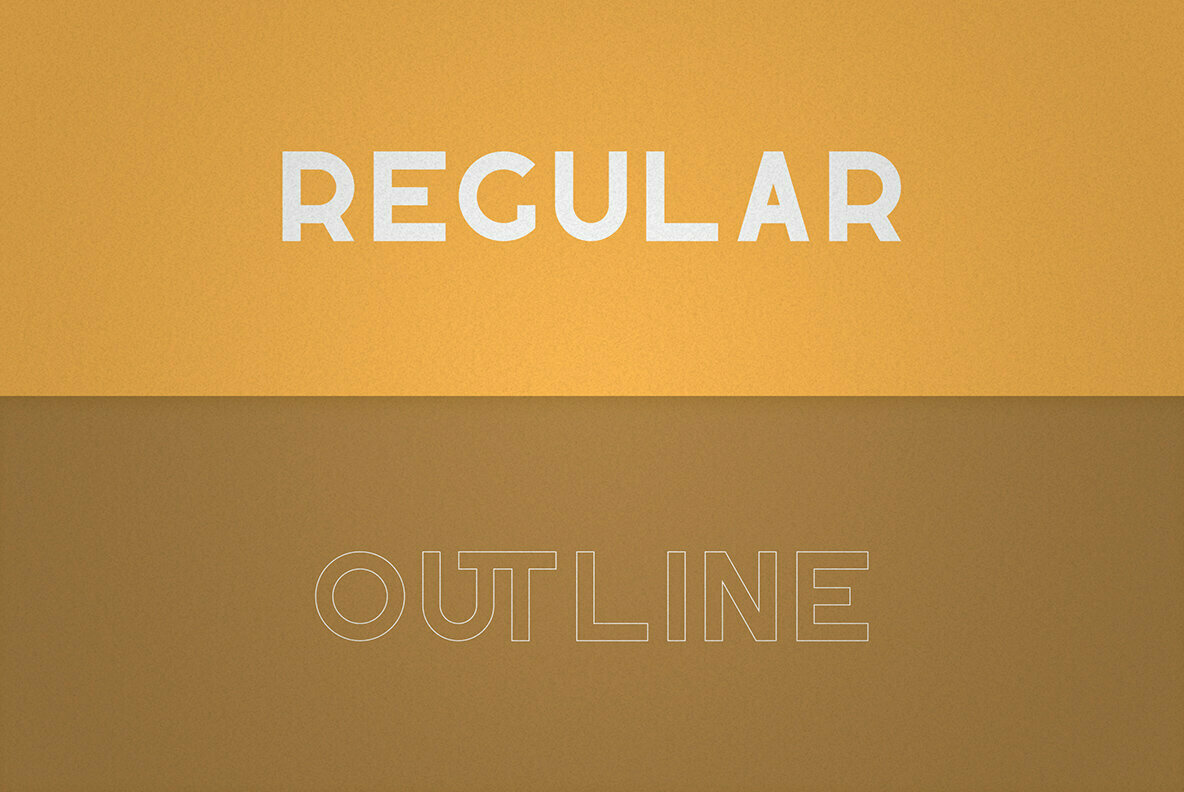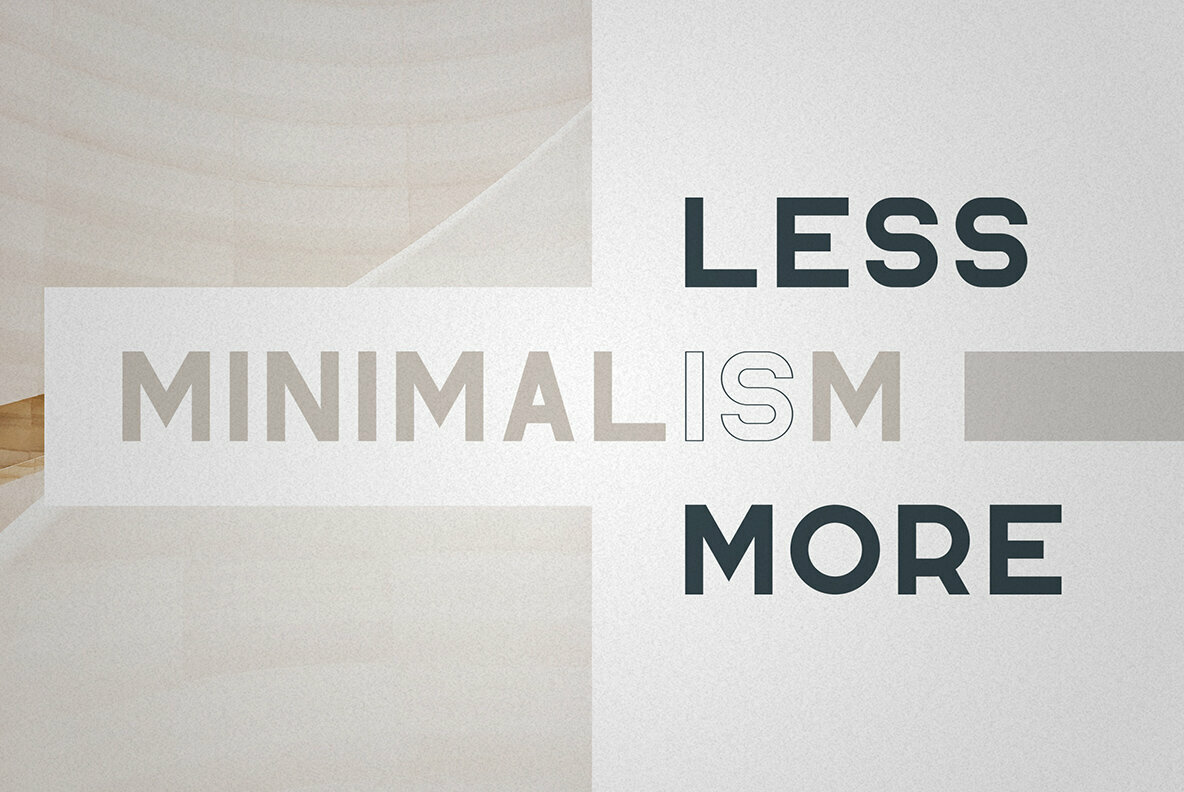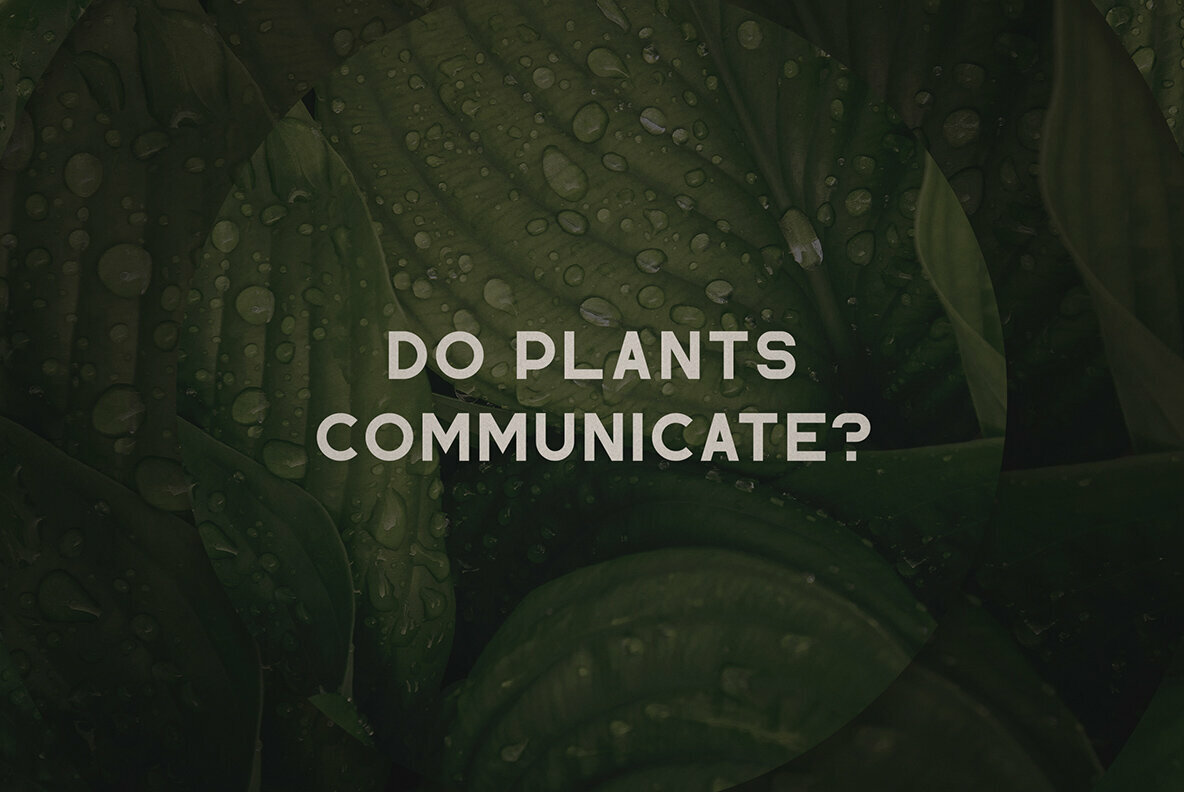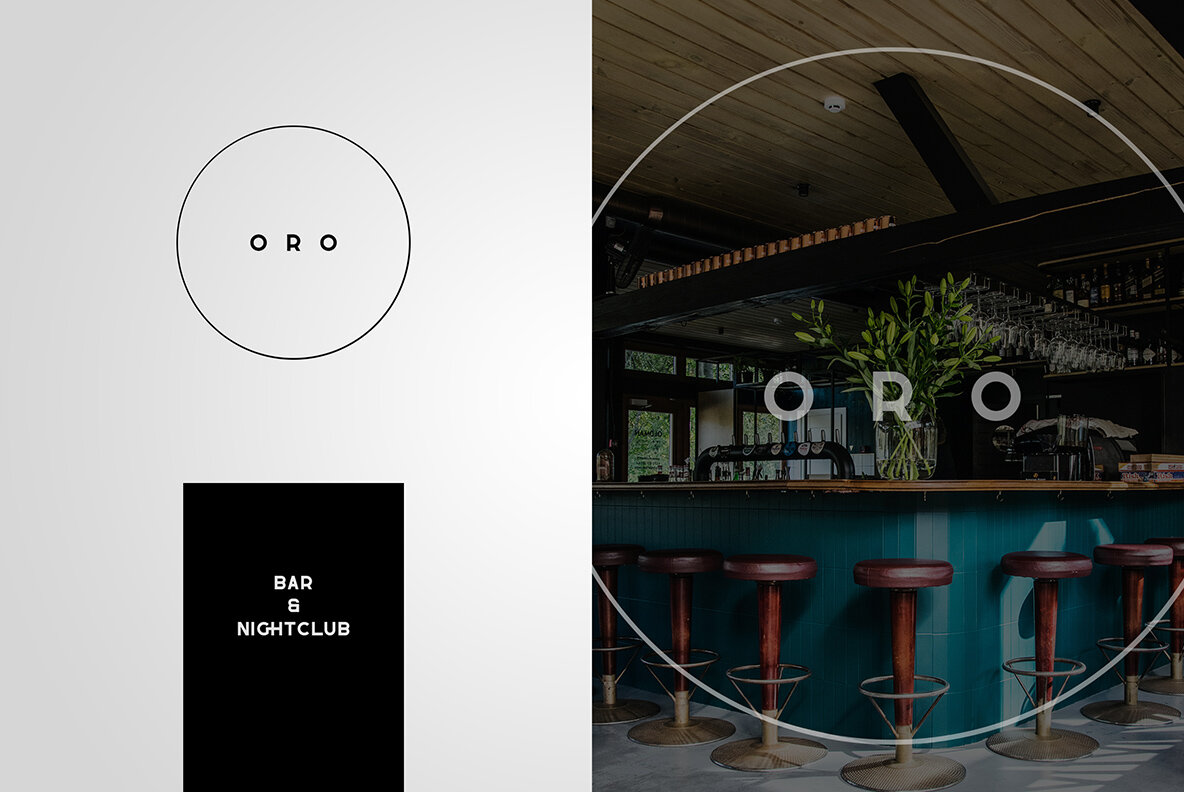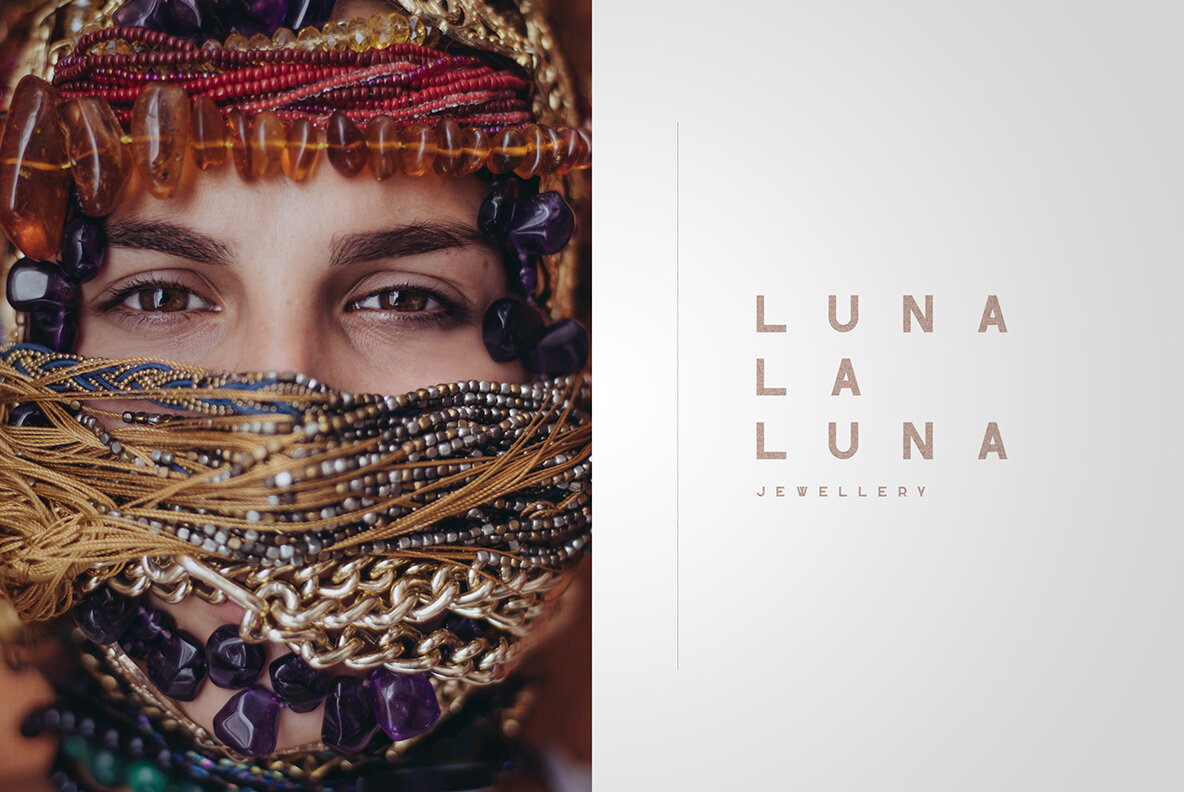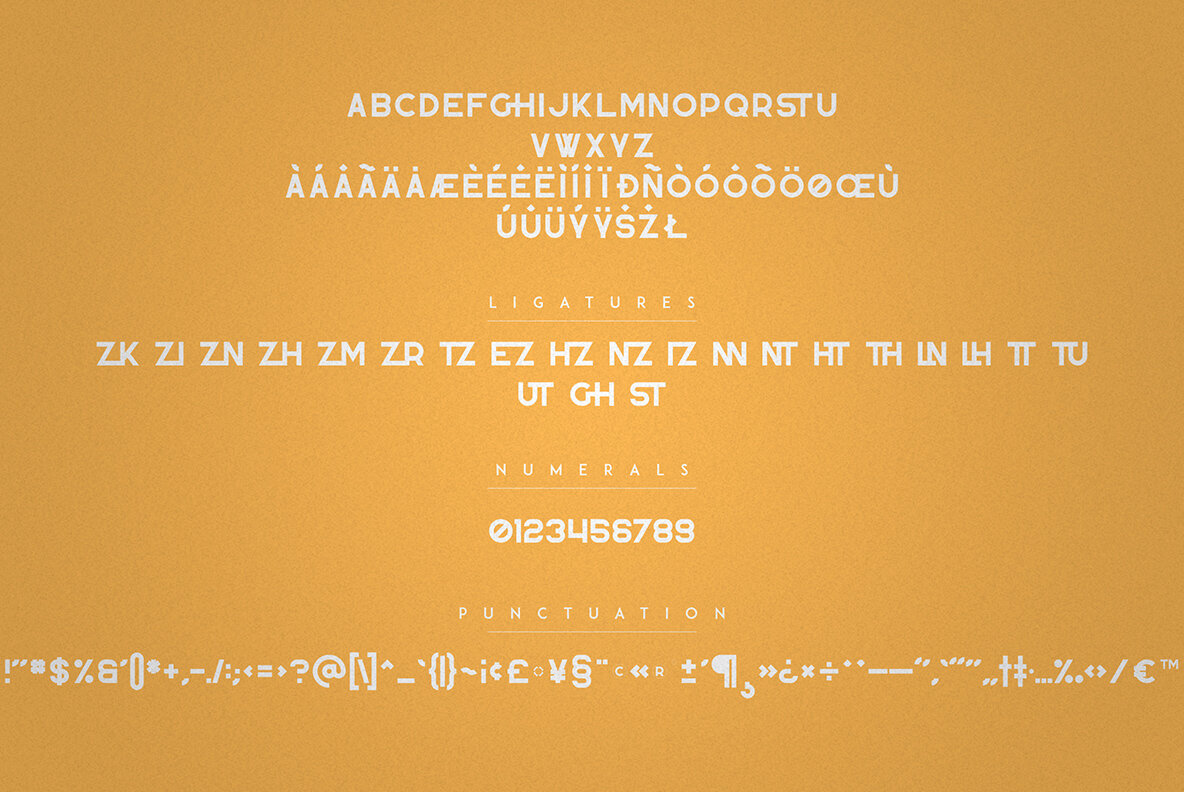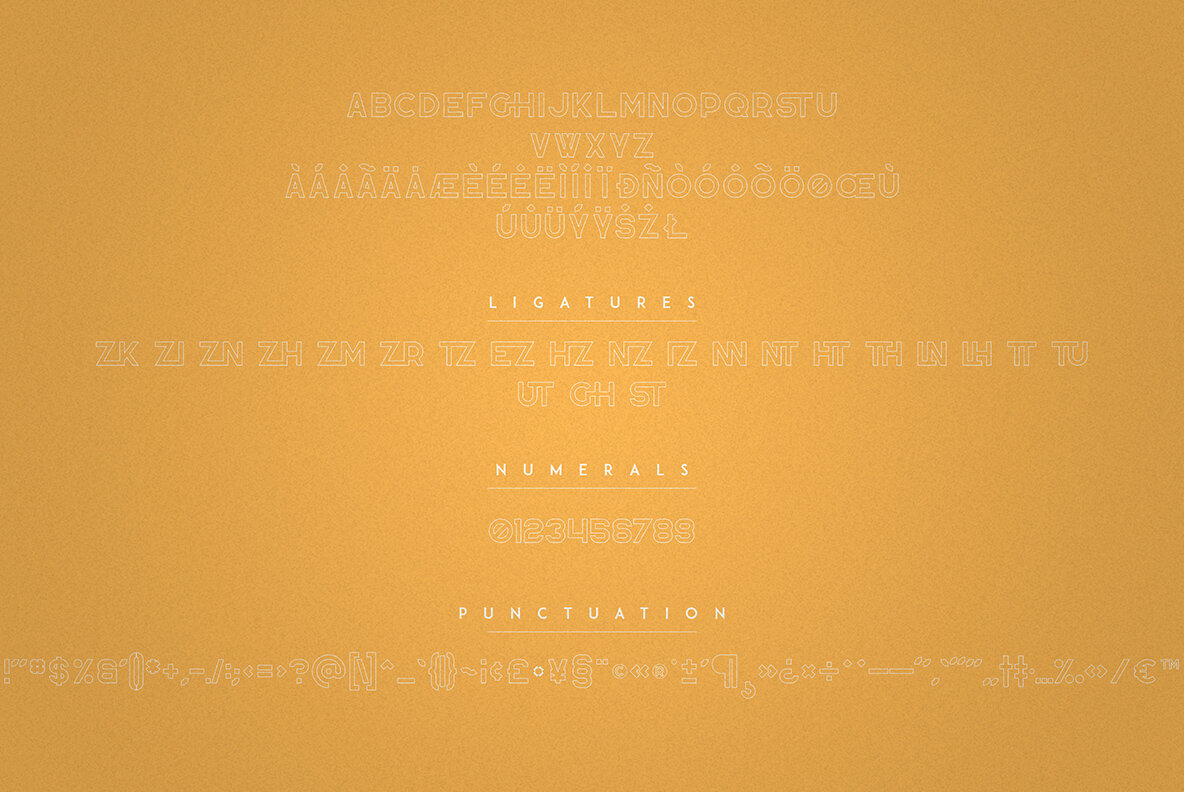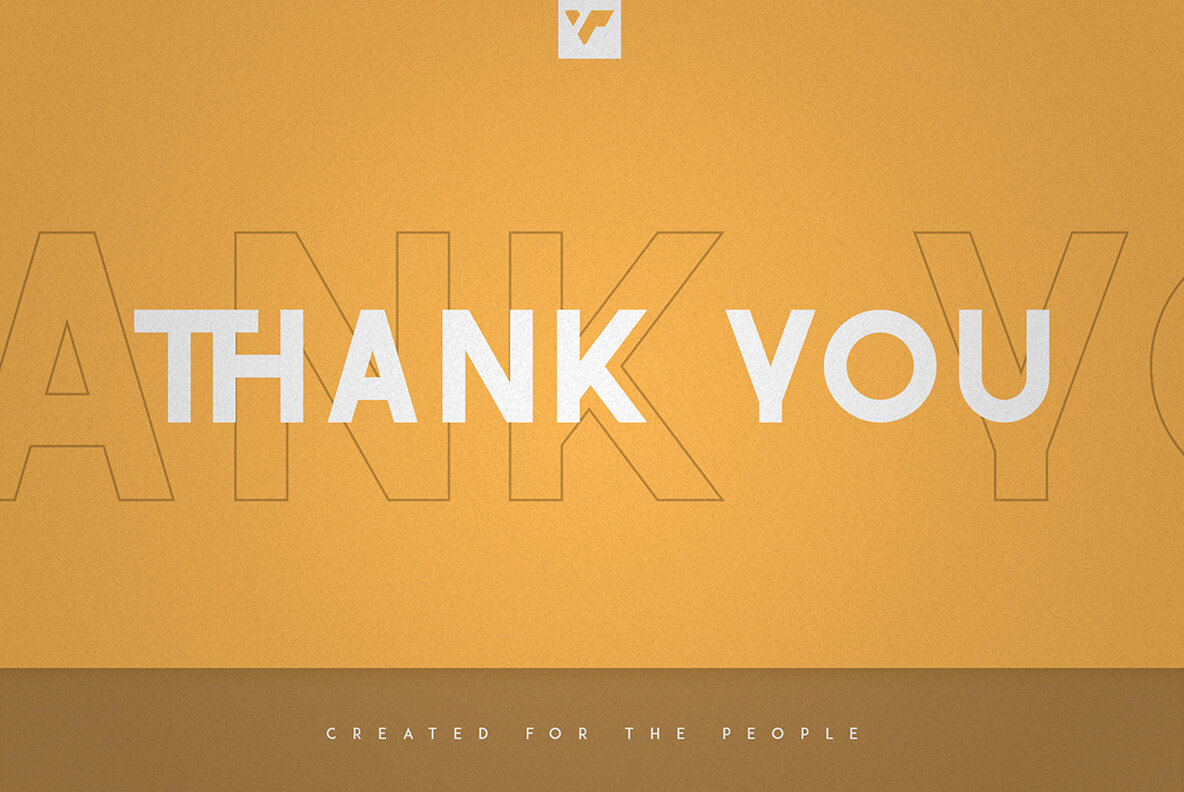
Zink Font
Zink
Zink Outline
Zink is a bold, clean typeface with 2 font styles, ligatures, and multilingual support. It's a very versatile font that works great in large and small sizes. Zink is perfect for branding projects, home-ware designs, product packaging, magazine headers - or simply as a stylish text overlay to any background image.
- Uppercase, Numeral, Punctuation & Symbol
- Regular
- Outline
- Multilingual support